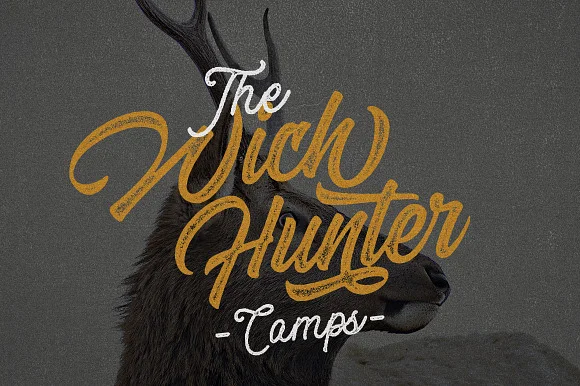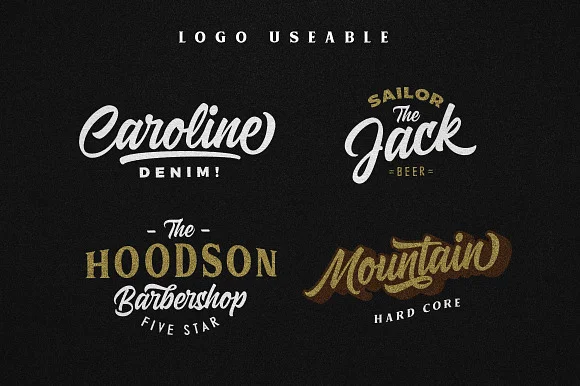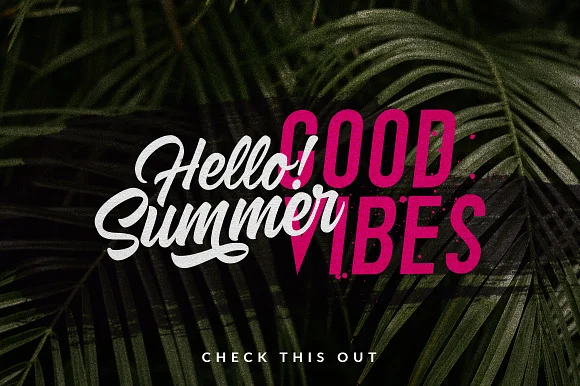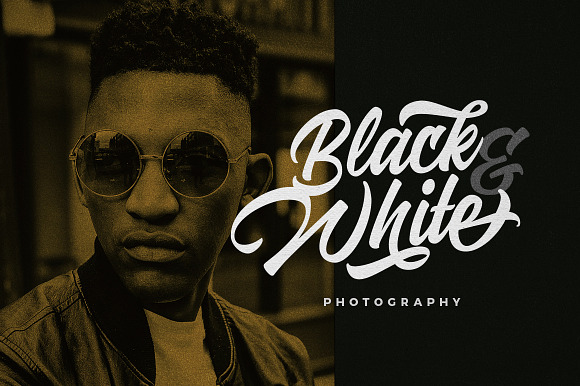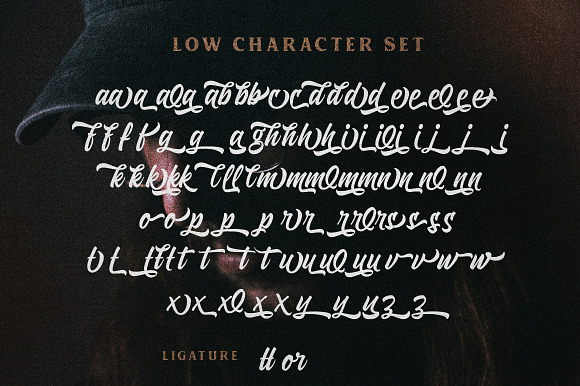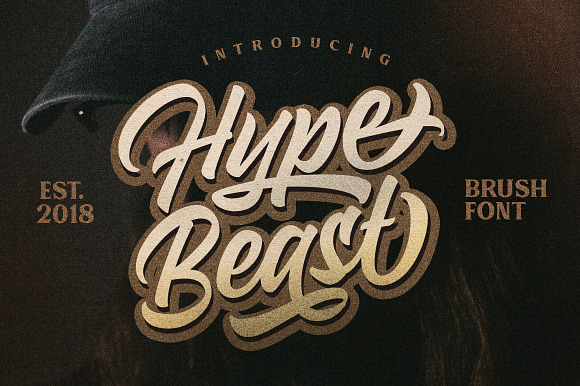
Hypebeast Script Font
Hypebeast Script Inspired by contemporary fashion and streetwear and combination with Hand Lettering style. I'm made with personality touch every single curve. I hope this can make inspire you from your work. and a very bouncy baseline It has a perfectly paired complimentary marker font , and a super handy set of bonus Swash. Ideal for logos, handwritten quotes, product packaging, header, poster, merchandise, social media & greeting cards. You can View this Tutorial For access all Alternate : https://youtu.be/TMFFCOh5R54 Files Include : Hypebeast Smooth.otf & ttf Hypebeast extrude Shadow .otf & ttf Hypebeast Swash.otf & ttf Help file Features Basic Latin A-Z and a-z Numbers Symbols Stylistic Set Ligature PUA Encode Multilanguage Support To enable the OpenType Stylistic alternates, you need a program that supports OpenType features such as Adobe Illustrator CS, Adobe Indesign & CorelDraw X6-X7. There are additional ways to access alternates, using Character Map (Windows), Nexus Font (Windows), Font Book (Mac) or a software program such as PopChar (for Windows and Mac).